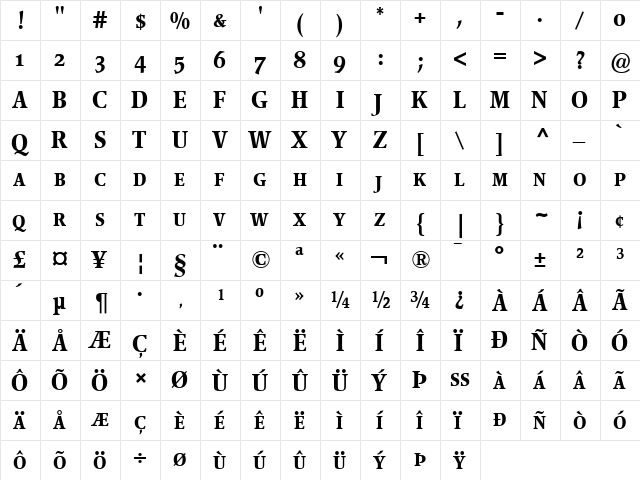
Poppl-Pontifex BE Regular
Design Context for Poppl-Pontifex BE Typeface
Poppl-Pontifex BE offers clean, dependable letterforms without strong stylistic allegiance, making it a practical choice for designers who need flexibility.